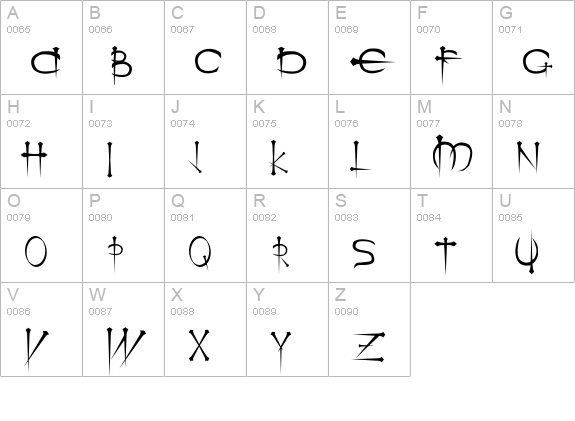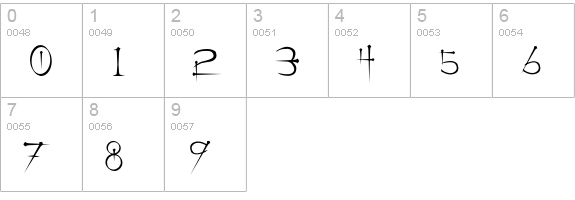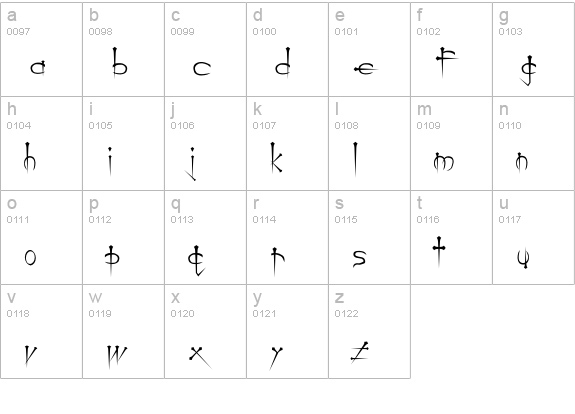
Ogilvie Font Details
Ogilvie font is a beautifully crafted typeface that exudes elegance and sophistication. With its sleek lines and stylish letterforms, Ogilvie is a versatile font that can be used for a variety of design projects. Whether you're creating a modern logo, designing a sleek website, or crafting a professional document, Ogilvie is sure to make a lasting impression. What sets Ogilvie apart is not only its stunning design but also the fact that it is available for free. That's right, Ogilvie font can be downloaded at no cost from FontsMarket.com, making it an accessible and budget-friendly option for designers and creatives alike. So go ahead and elevate your projects with the timeless beauty of Ogilvie font - all without breaking the bank.